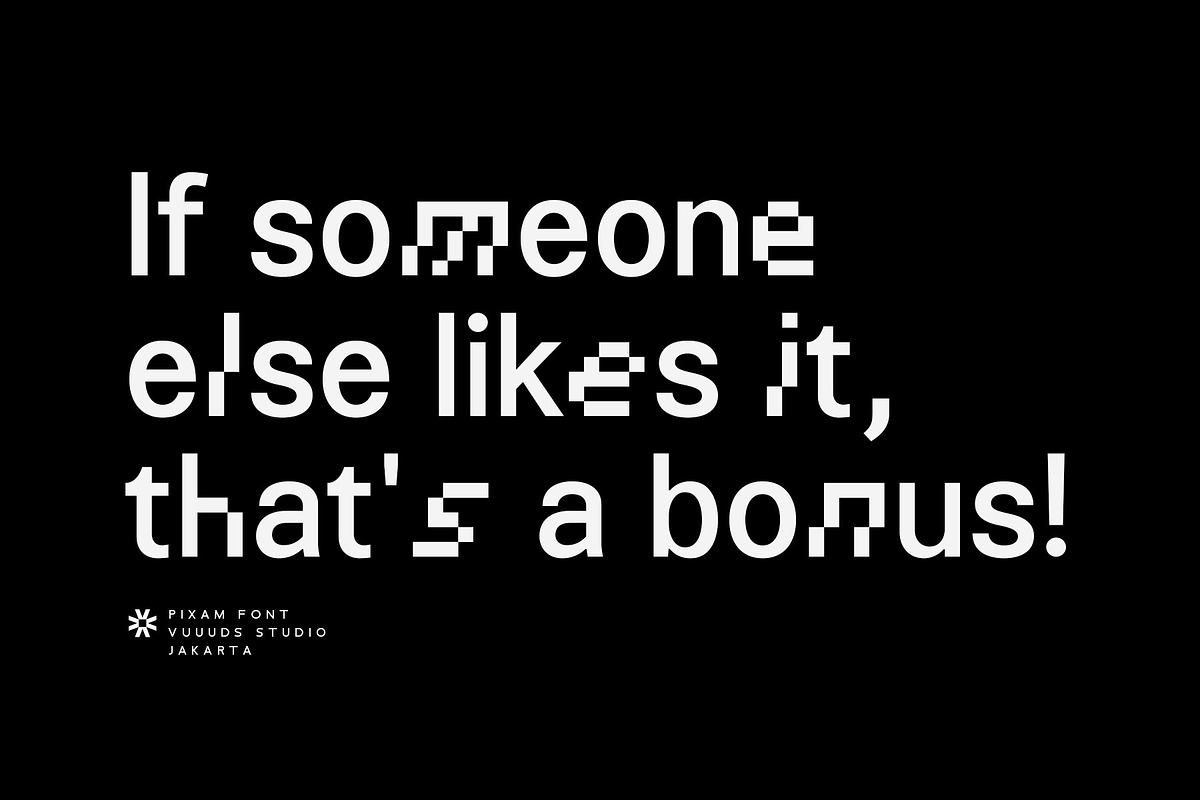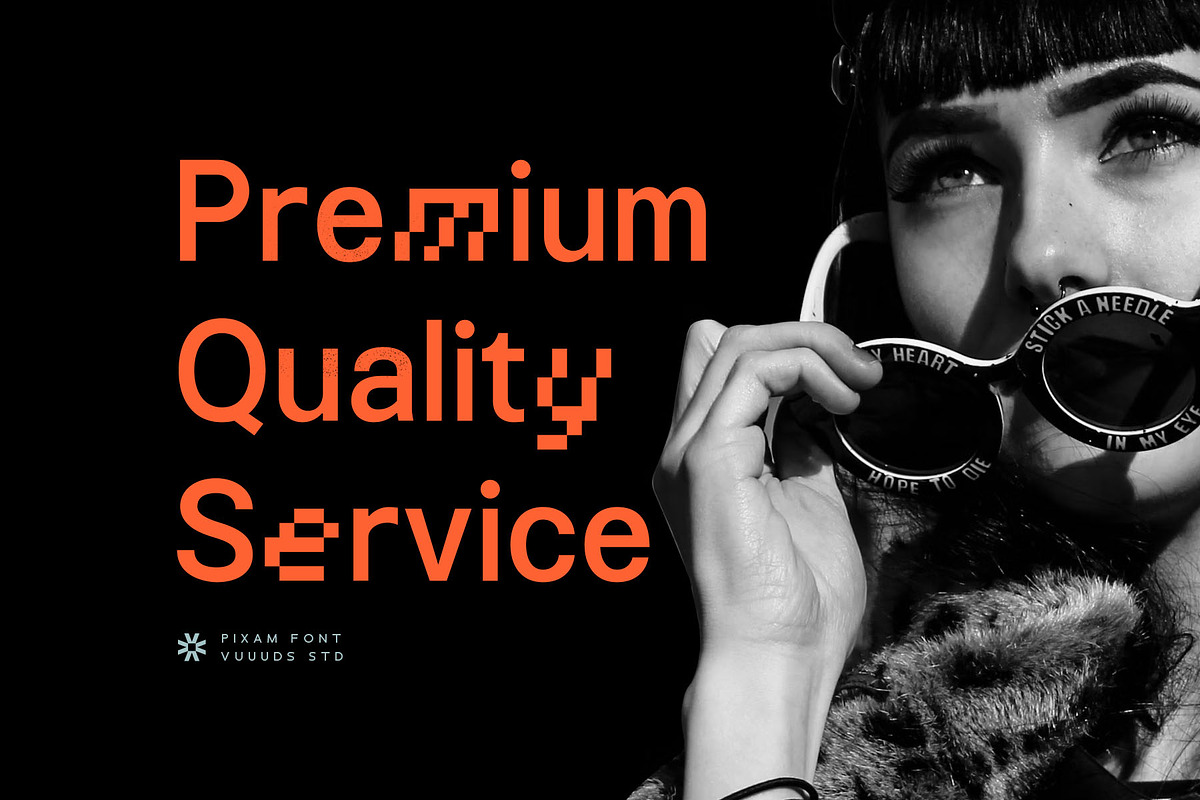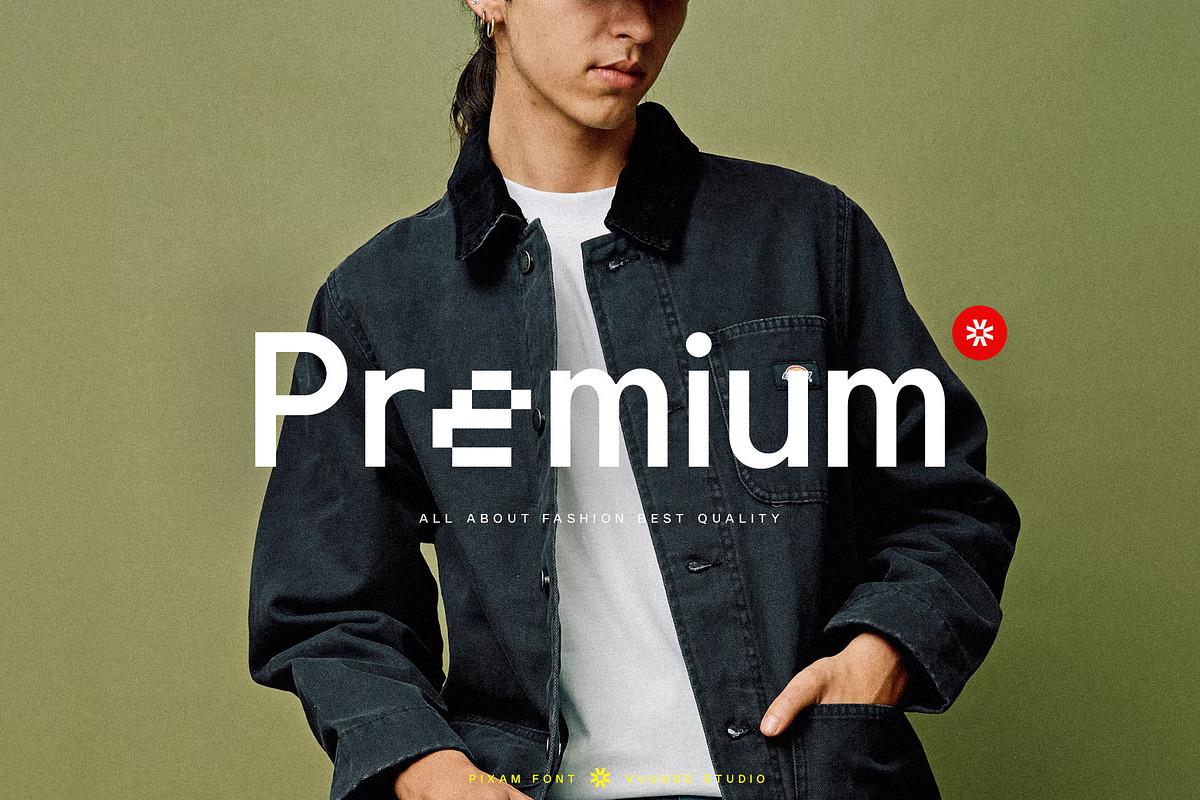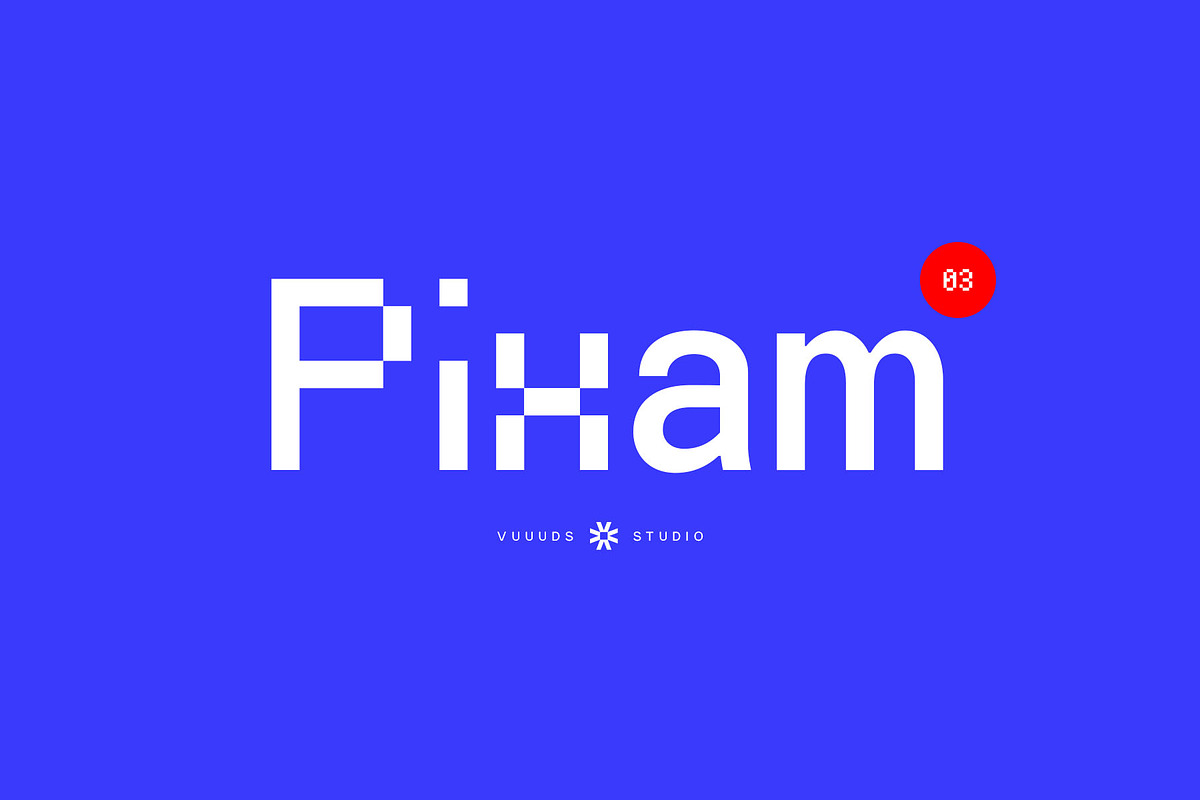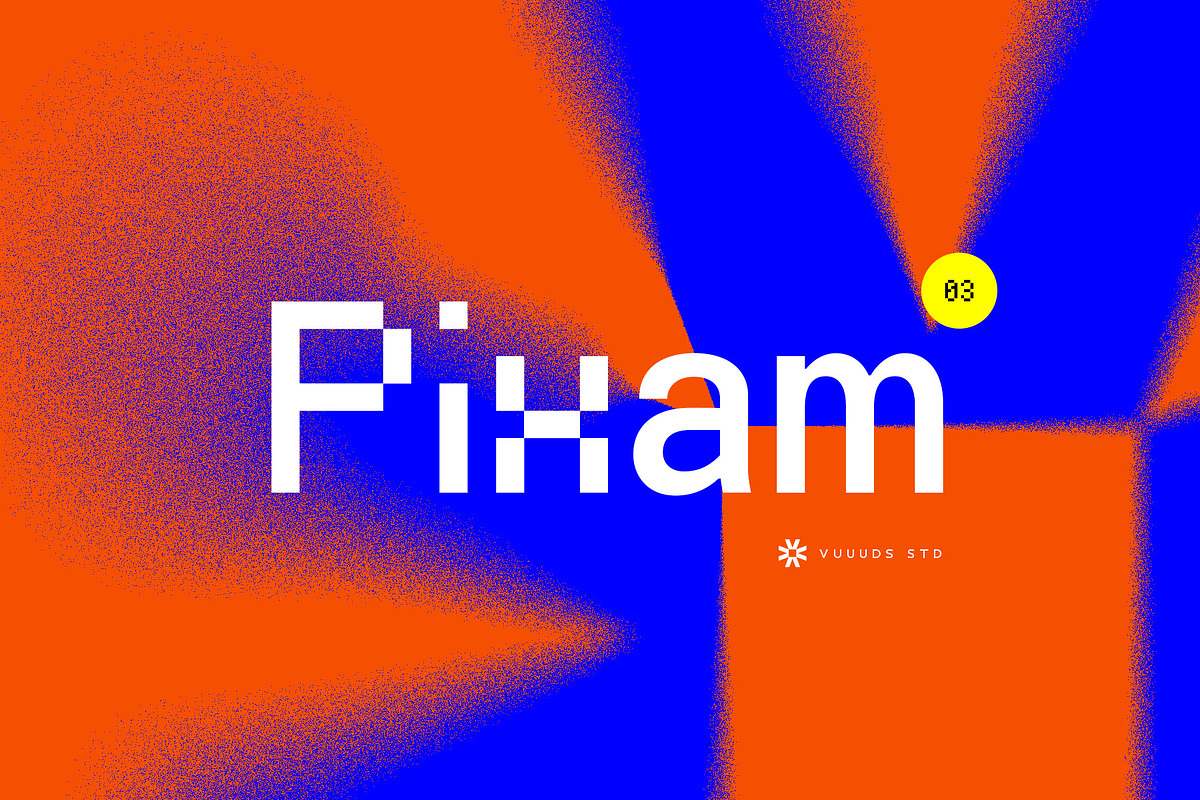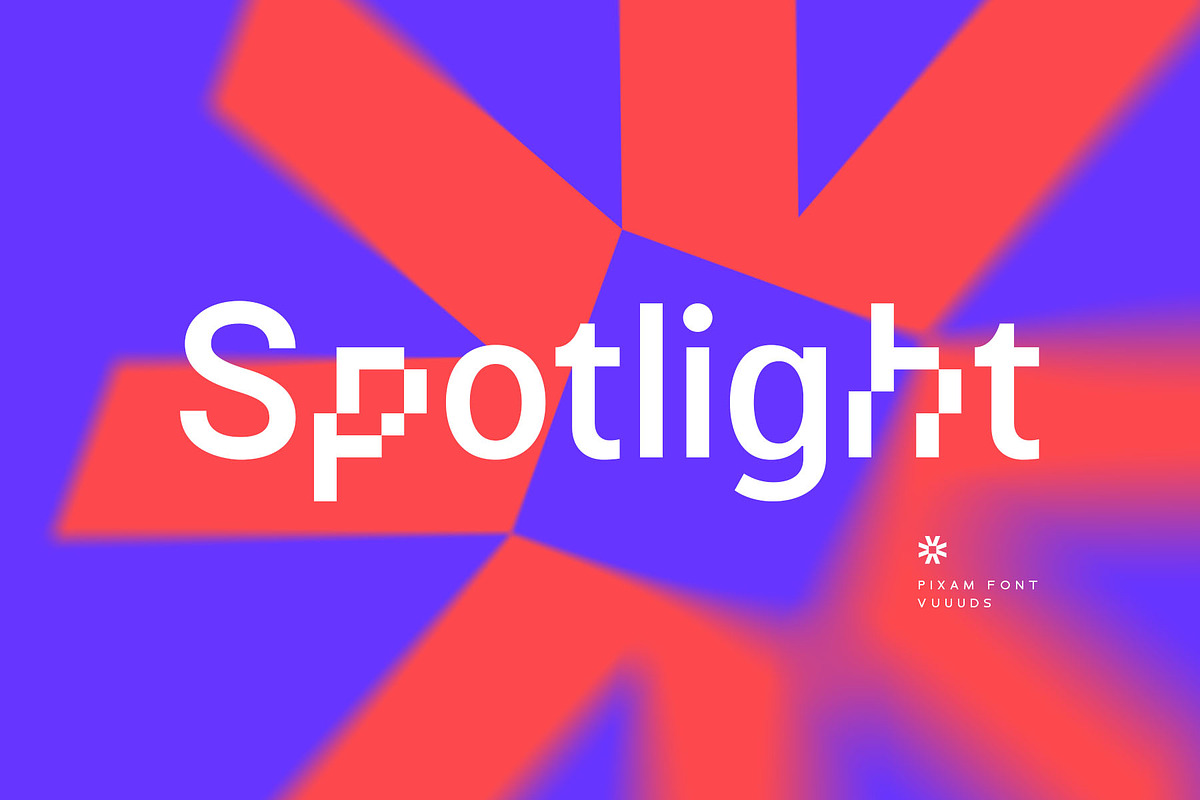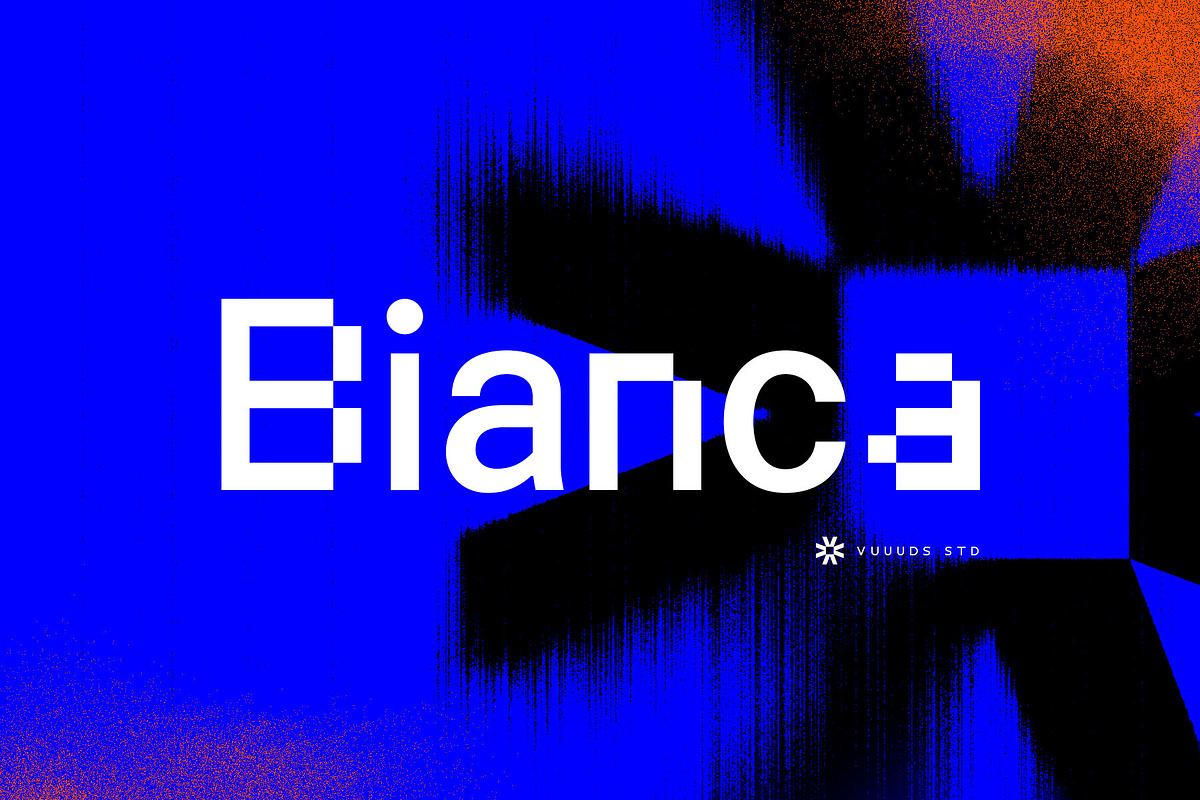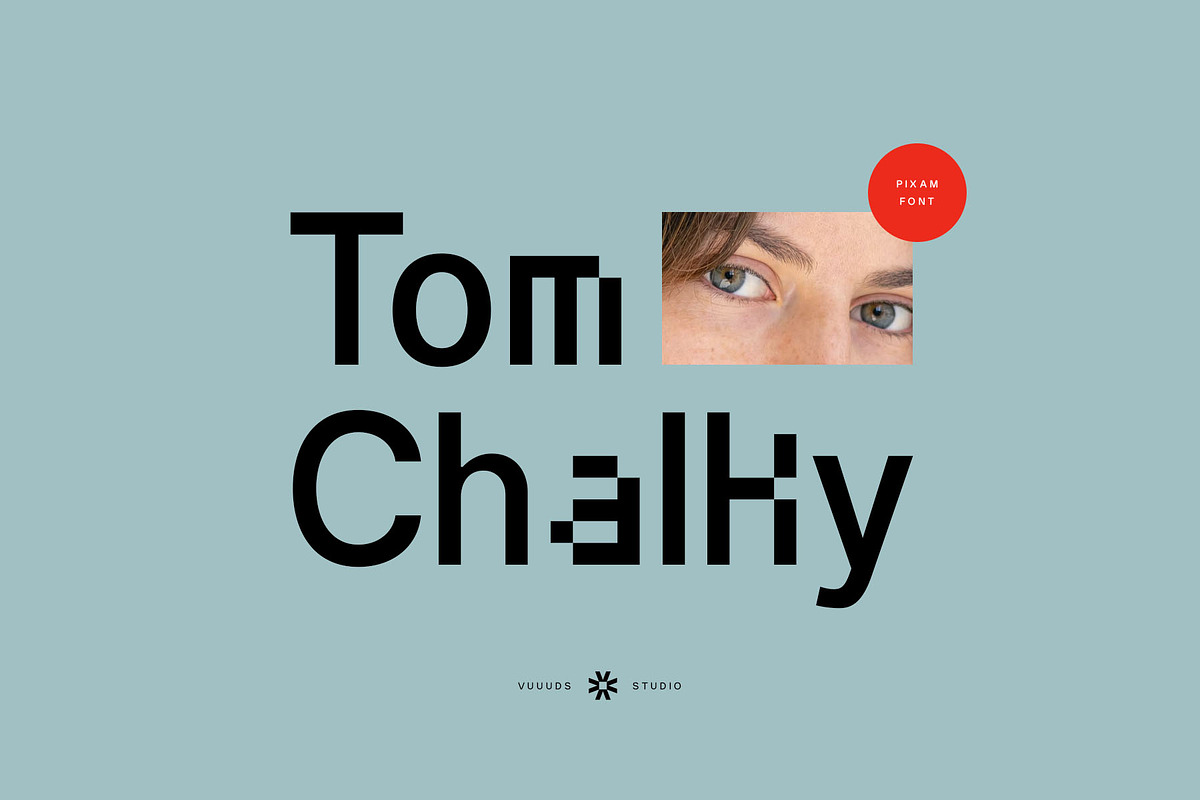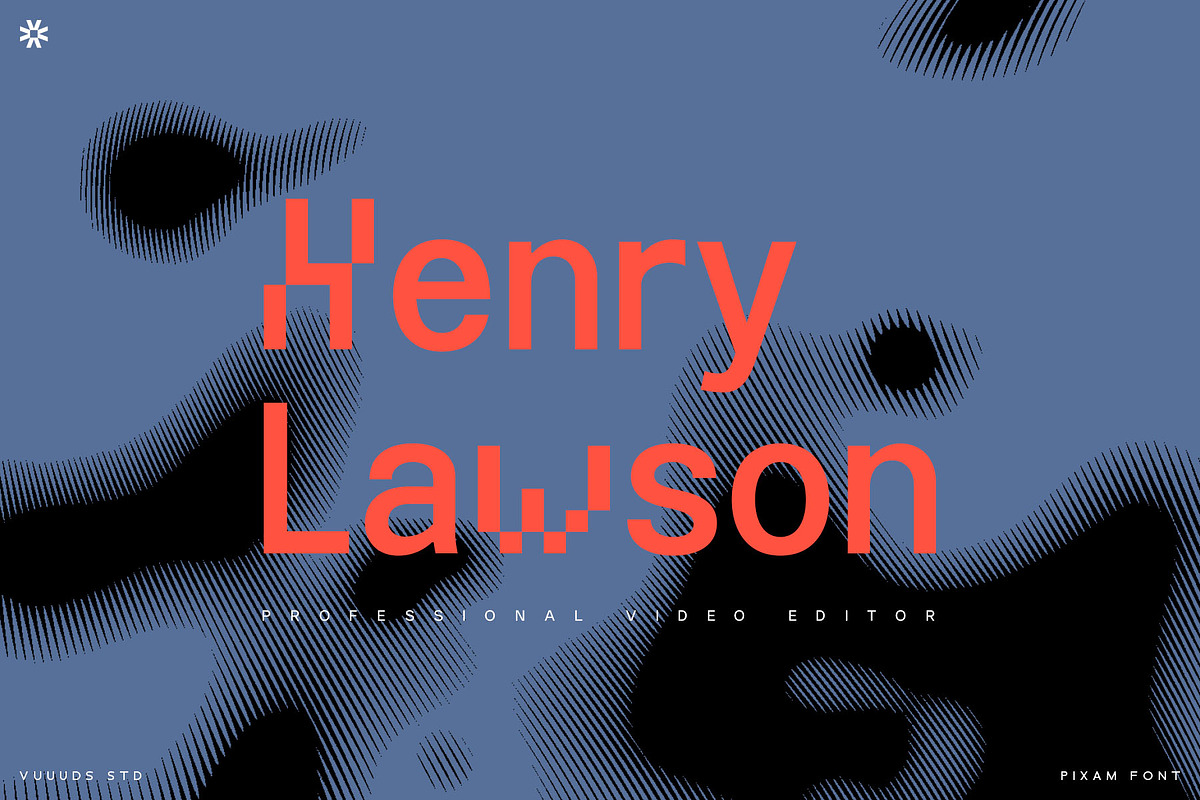
Pixam Font
Introducing Pixam Font!
Pixam is modern experimental pixel sans serif font, every single letters have been uniquely crafted.
Foreign languages support: ÀÁÂÃÄÅÆÇÈÉÊËÌÍÎÏÐÑÒÓÔÕÖØÙÚÛÜÝàáâãäåæçèéêëìíîïðñòóôõöøùúûüýÿ